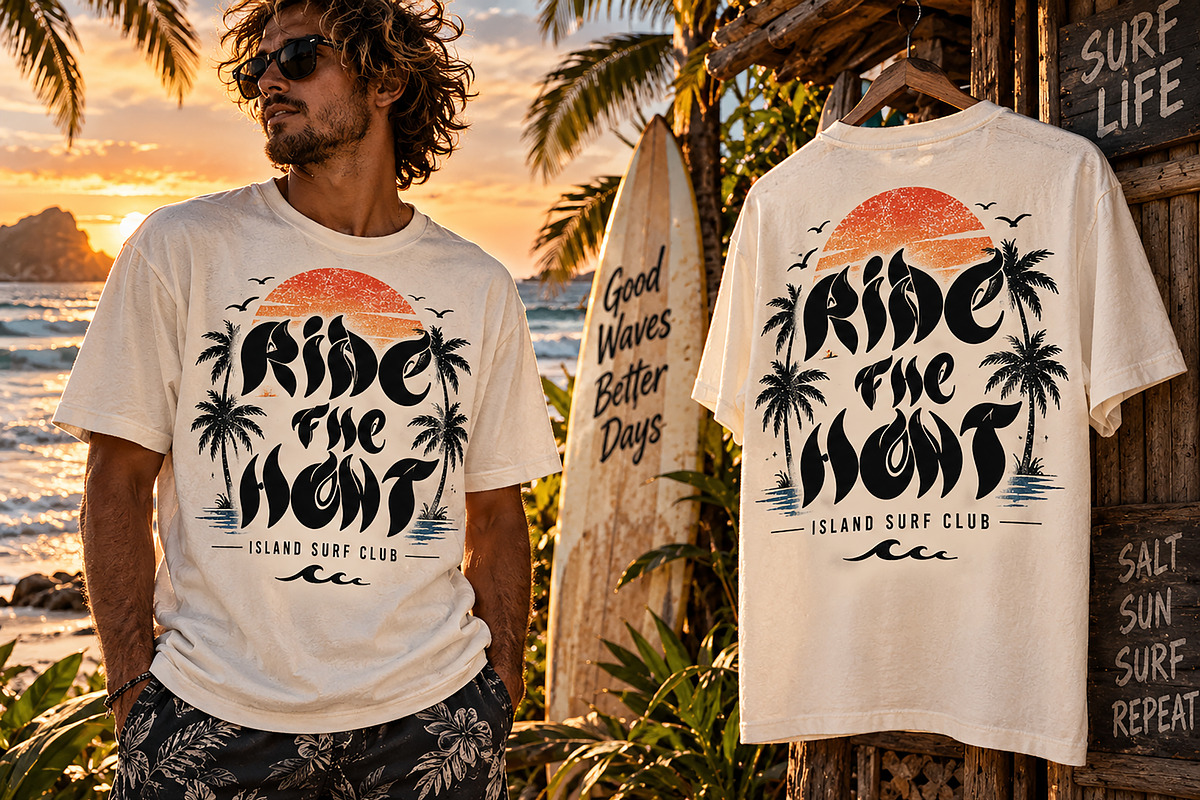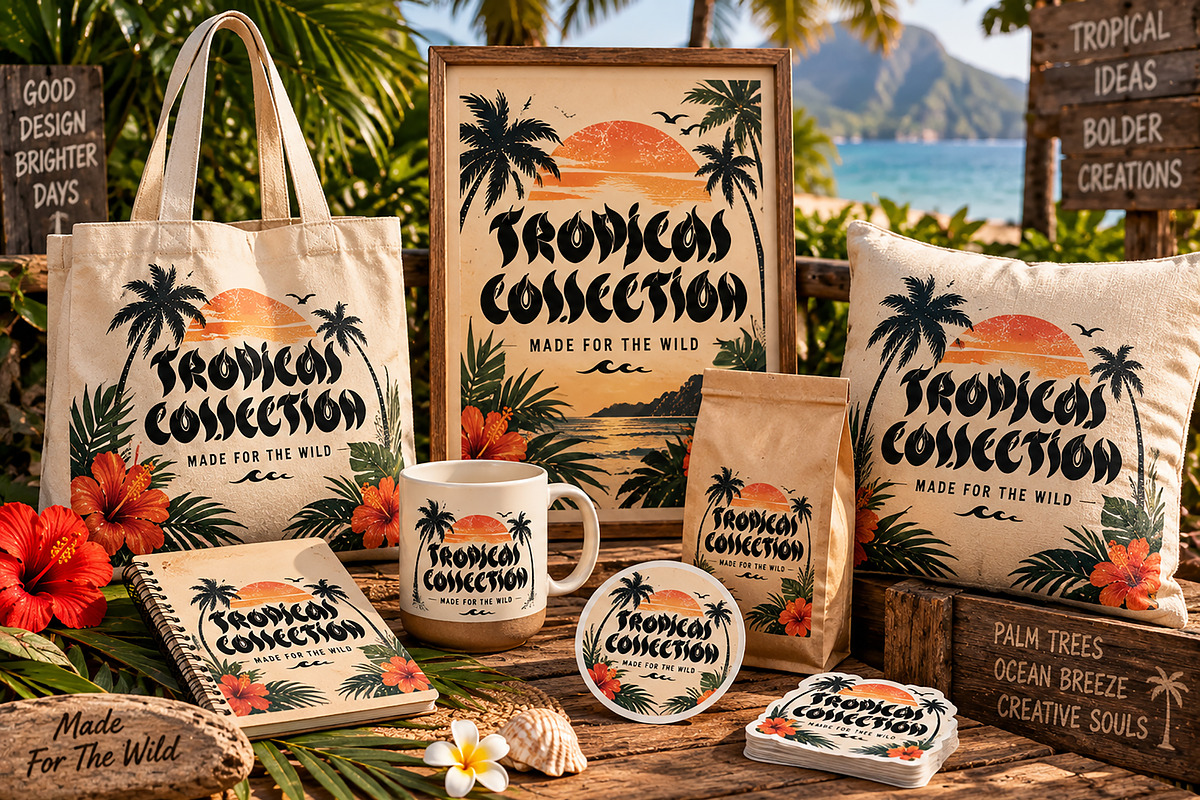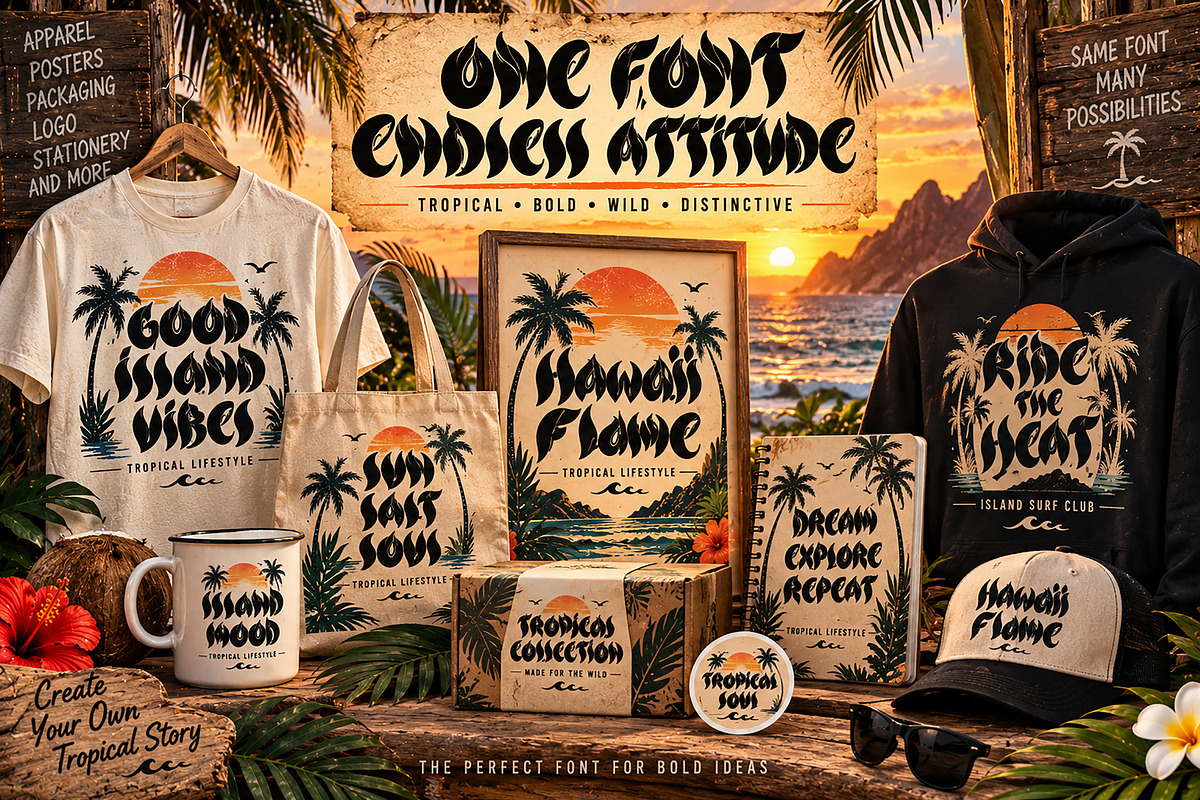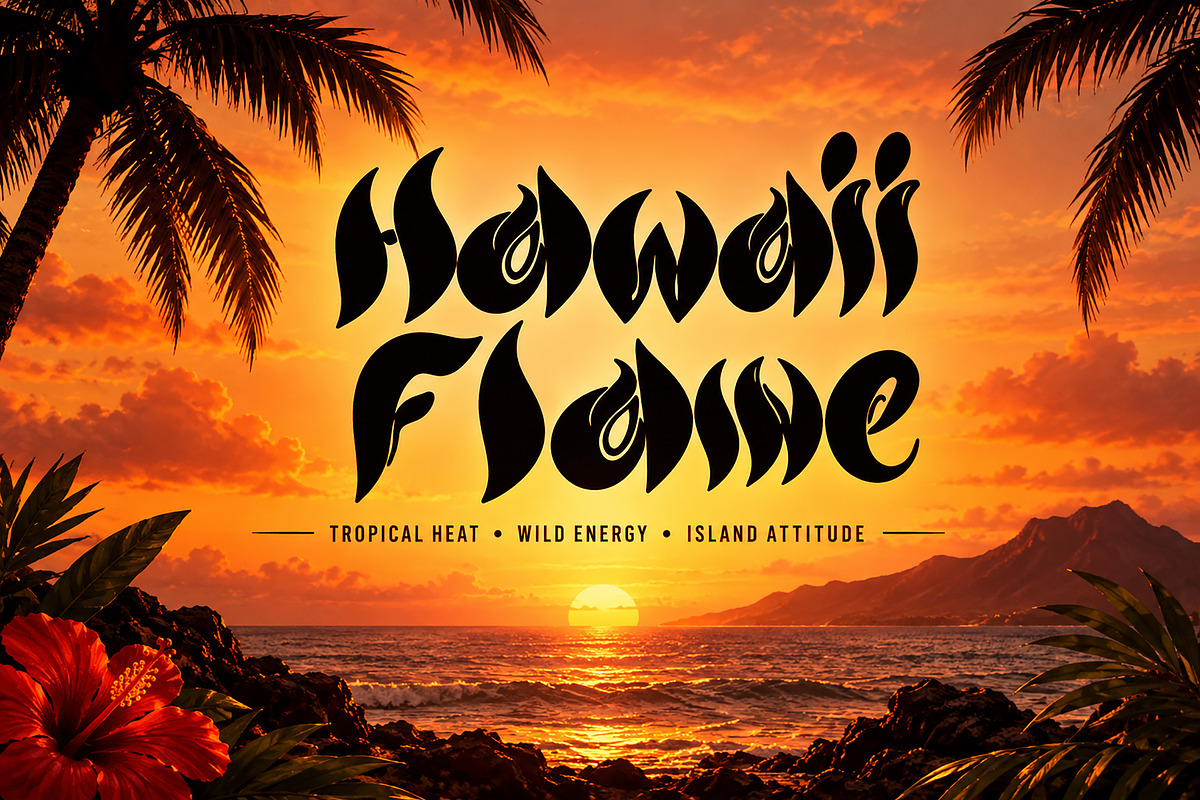
Hawaii Flame
Hawaii Flame is a bold and expressive tropical display font inspired by the heat, energy, and adventurous spirit of island culture. Its distinctive flame-shaped letterforms combine a fiery aesthetic with a playful tropical attitude, making it an eye-catching choice for creative projects that need a strong and memorable look.
Designed to stand out, Hawaii Flame works beautifully for T-shirt designs, surf and streetwear graphics, tropical branding, posters, logos, stickers, packaging, product labels, merchandise, book covers, social media graphics, and other display-focused projects.
Whether you're creating a beach-inspired brand, summer merchandise, surf apparel, vacation artwork, or an adventurous tropical campaign, Hawaii Flame brings a unique visual personality to your typography.
Tropical & Hawaiian Designs
Surf & Beach Branding
T-Shirt & Apparel Designs
Streetwear Graphics
Posters & Flyers
Logos & Brand Identity
Stickers & Labels
Product Merchandise
Book & Album Covers
Vacation & Summer Designs
Retro Tropical Projects
Lifestyle Branding
Style: Tropical / Flame / Bold Display
Type: Decorative Display Font
Bring tropical heat and wild island energy to your next creative project with Hawaii Flame.